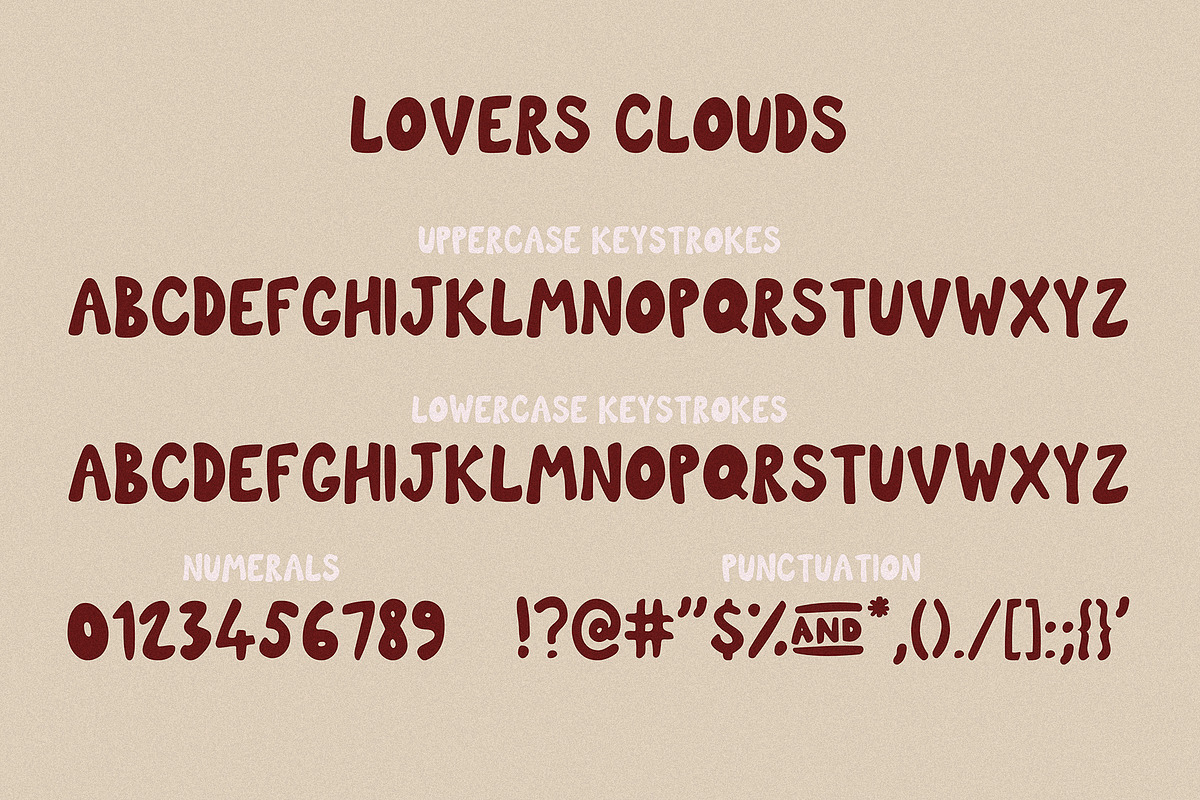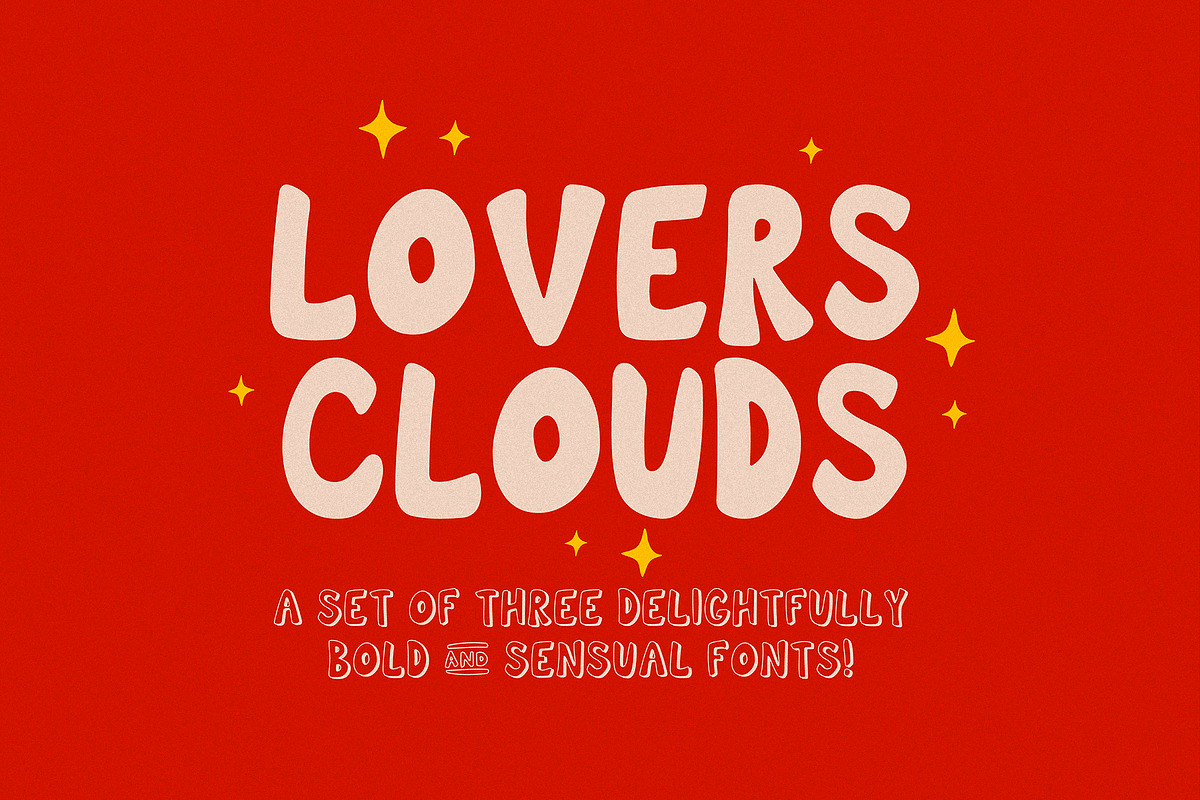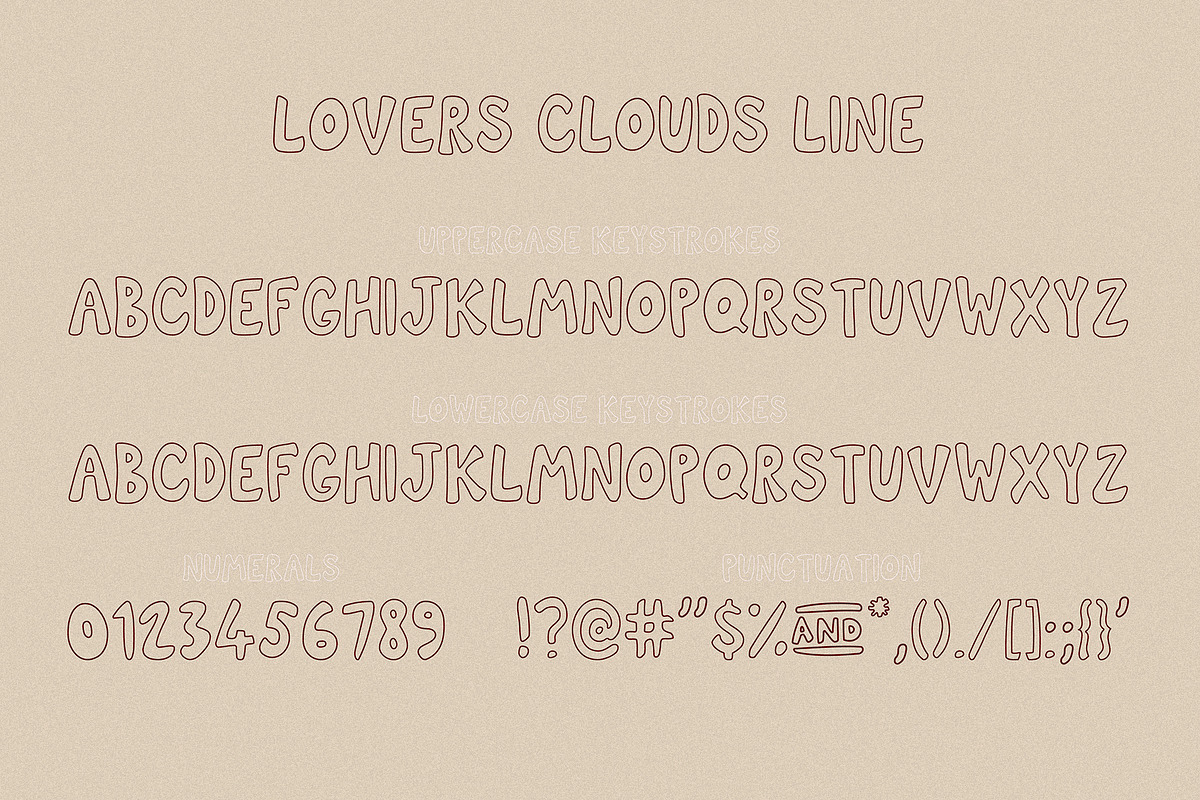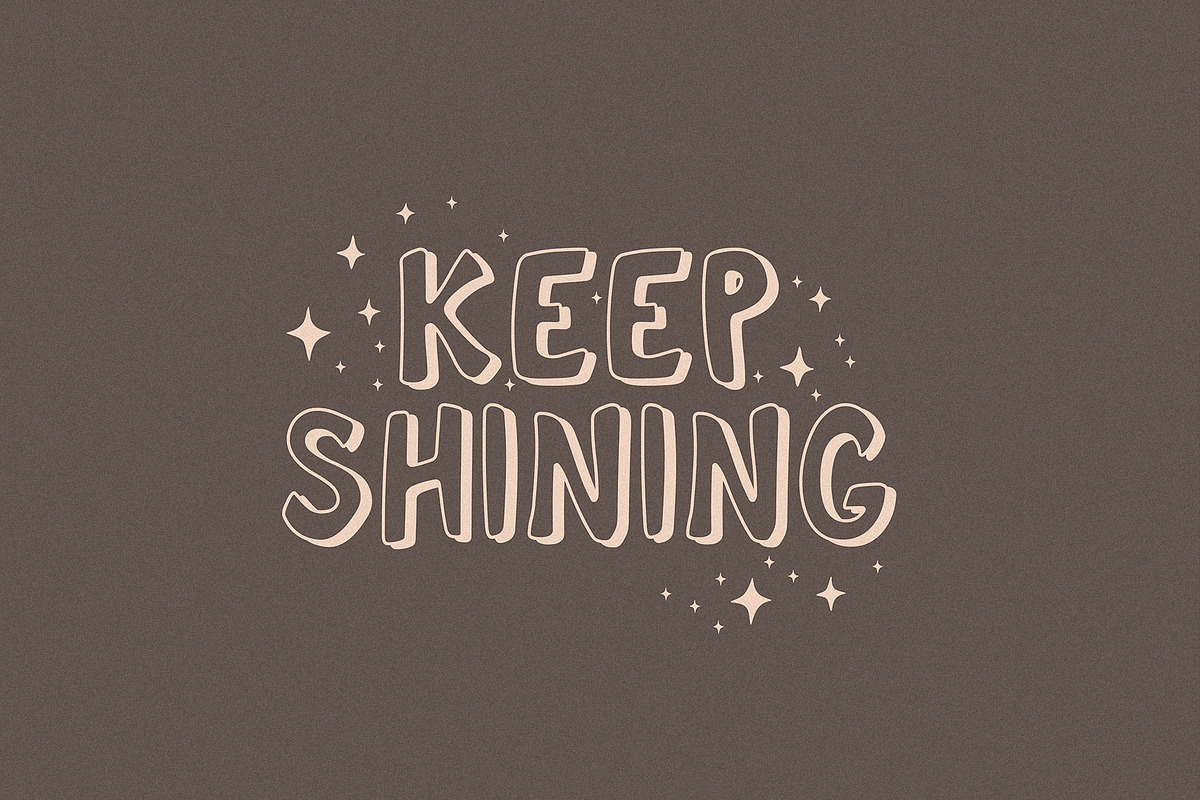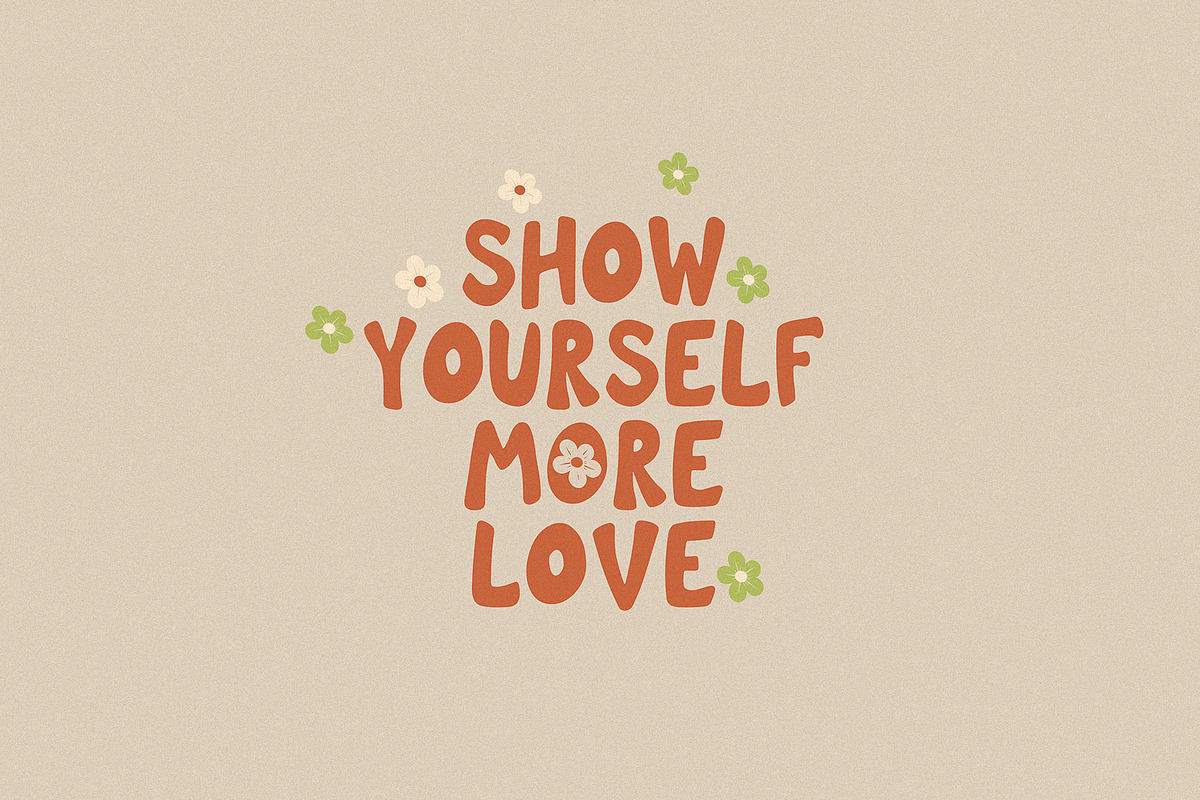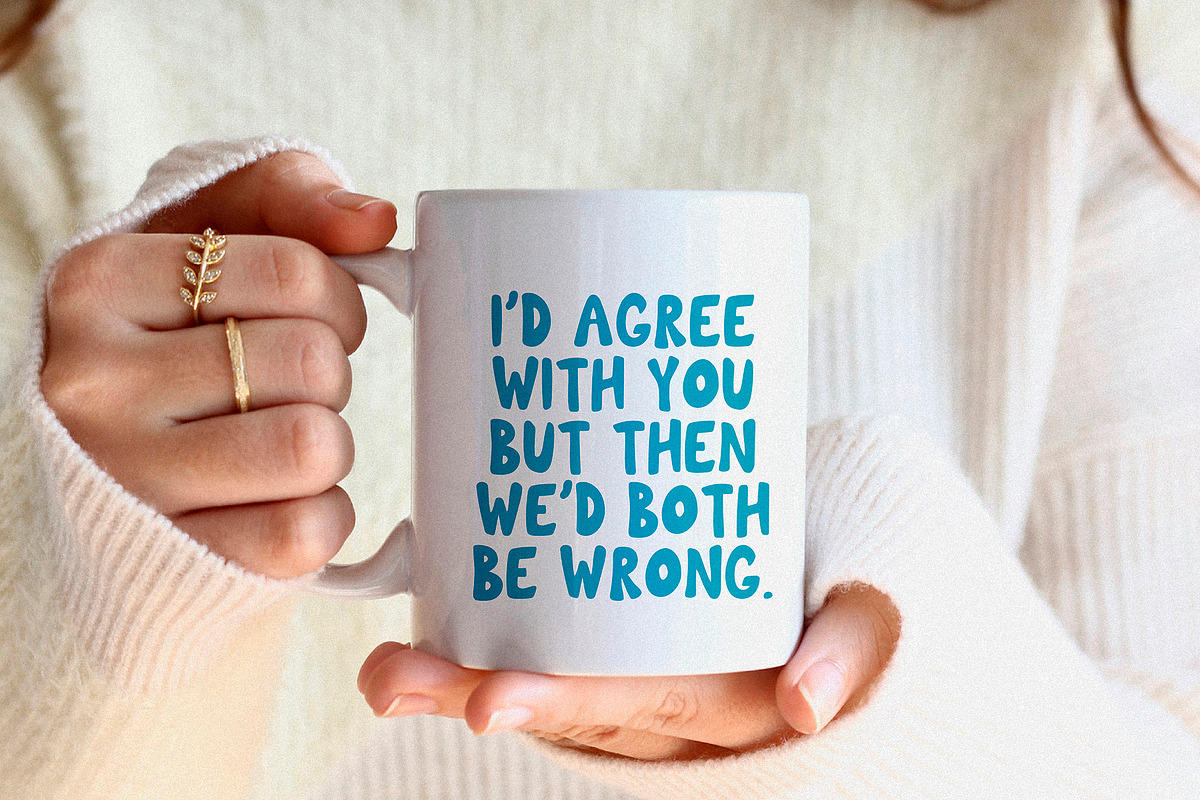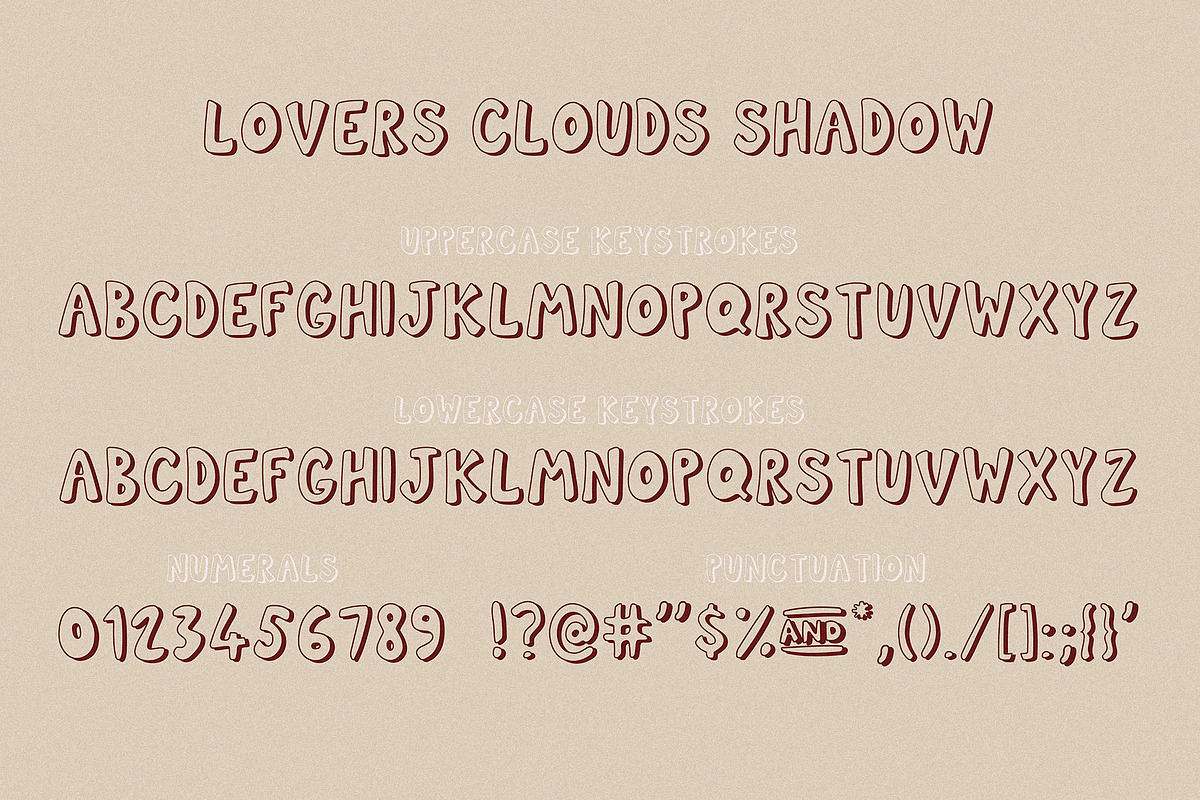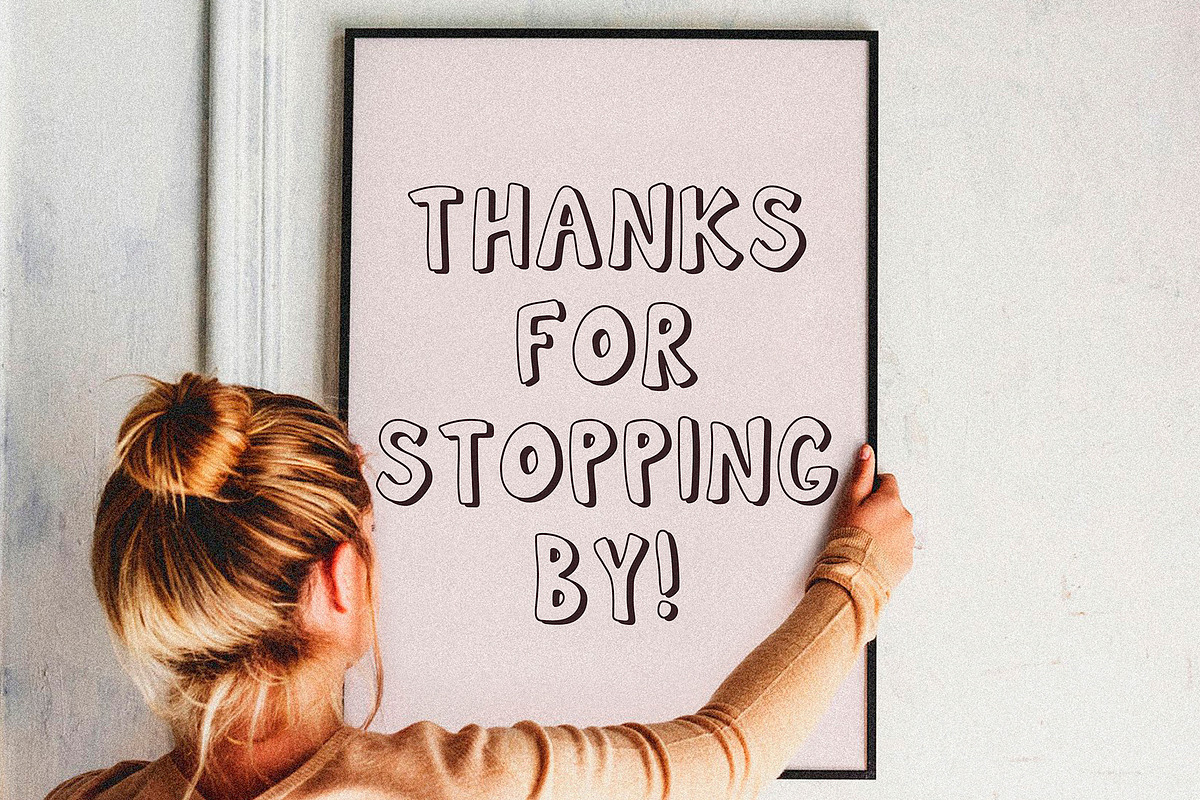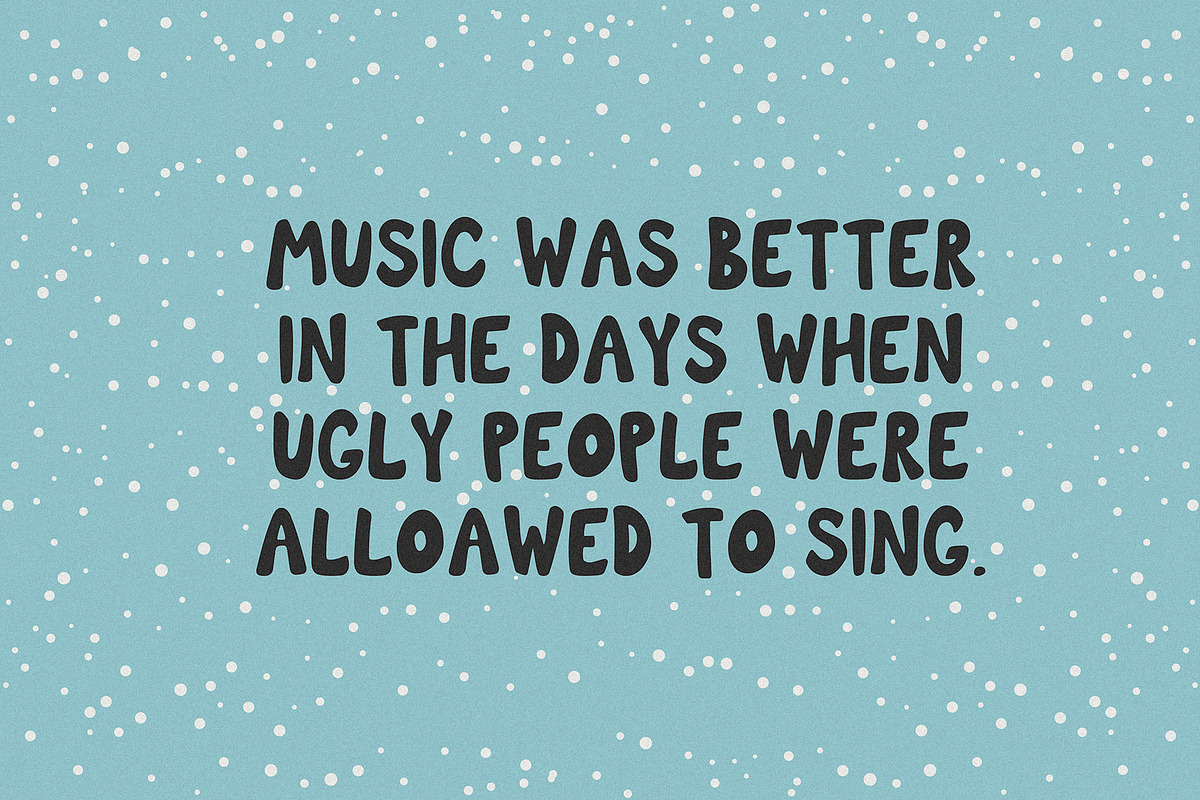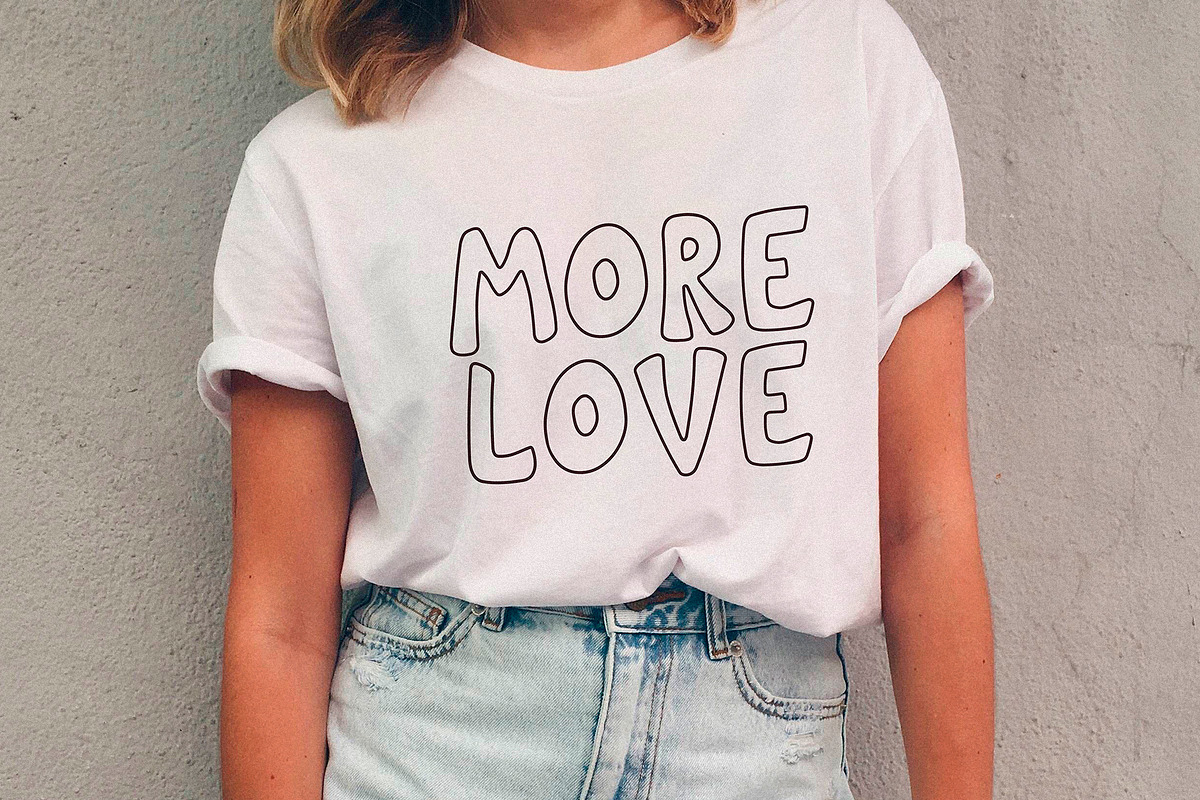
Lovers Clouds Layered Font
Say Hello to Lovers Clouds! A set of three delightfully bold and sensual cloud-style fonts!
Perfect for in-game quotes, packaging, branding, invitations, greeting cards and more. Super easy to use!